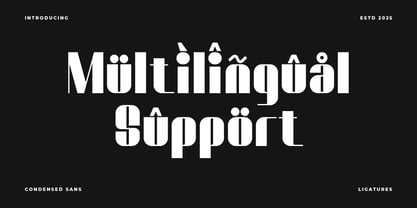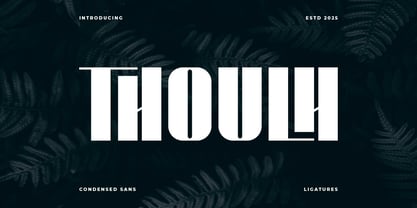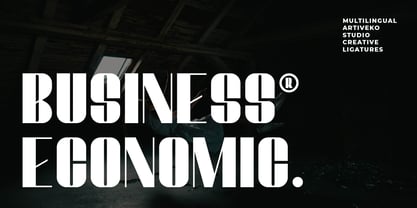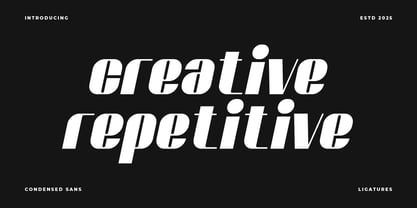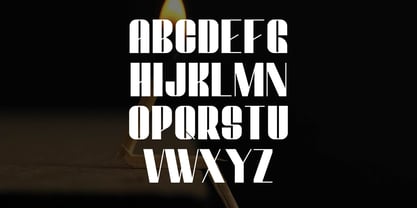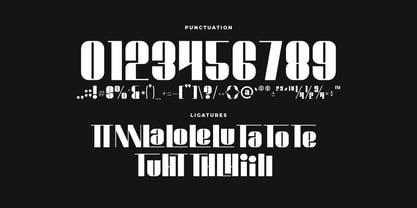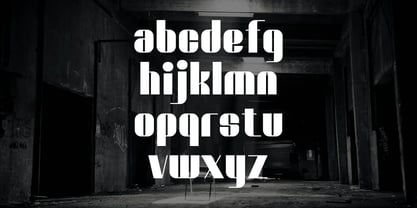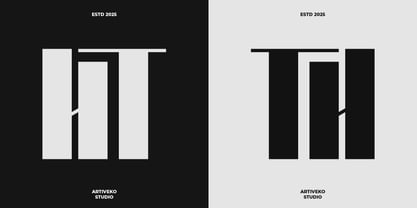
Thoulh
by Artiveko
The Thoulh Font Family was designed by Iwan Alwan and published by Artiveko. Thoulh contains 2 styles and family package options. More about this family
Thoulh is a bold and condensed display sans serif typeface designed to grab attention and make a lasting impression. With its narrow proportions and sharp, modern structure, Thoulh is perfect for headlines, posters, branding, editorial layouts, and anything that demands a strong visual identity. Its clean geometry and tight spacing give your designs a confident and contemporary feel without sacrificing readability.
What sets Thoulh apart is its ability to balance power and precision. The compressed letterforms make it ideal for space-saving layouts, while its sleek, futuristic curves add a unique edge to your typographic compositions. From tech startups to fashion brands, Thoulh adapts with ease, bringing both character and clarity to your work.
Designers: Iwan Alwan
Foundry: Artiveko